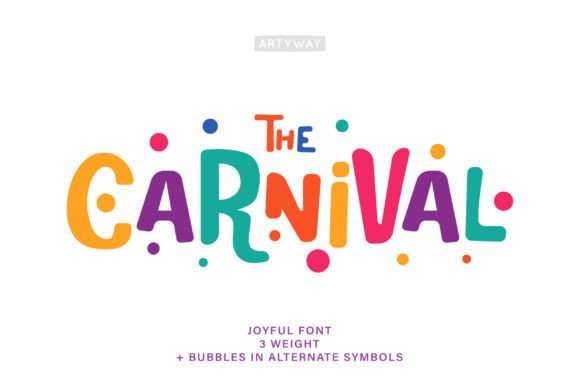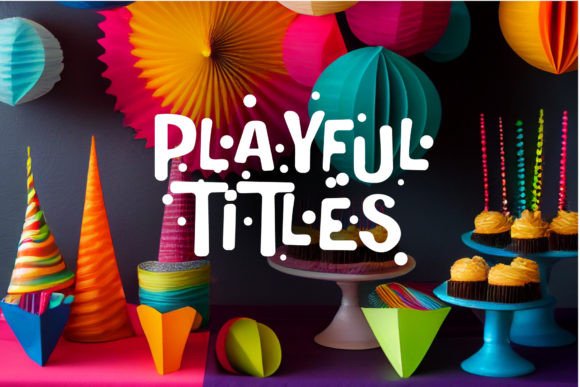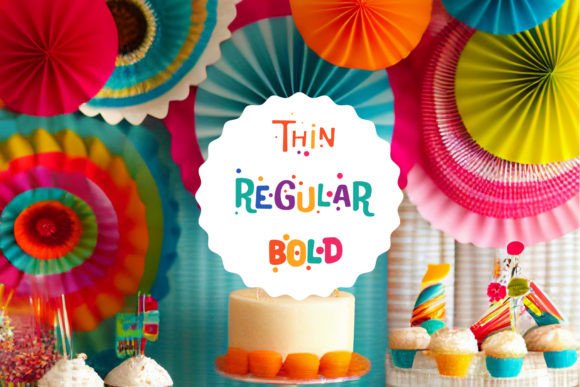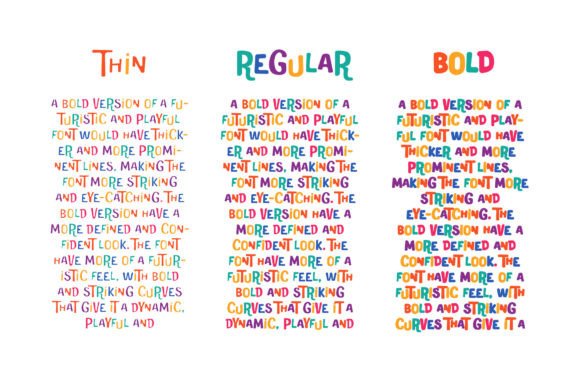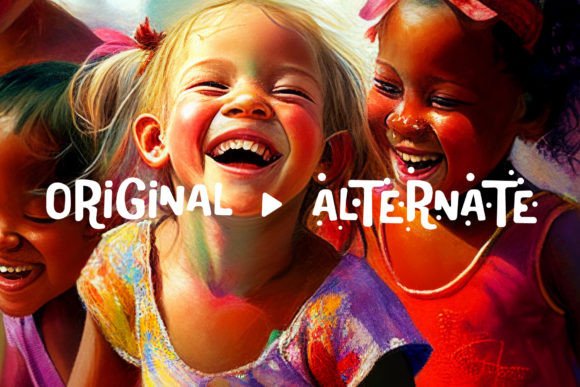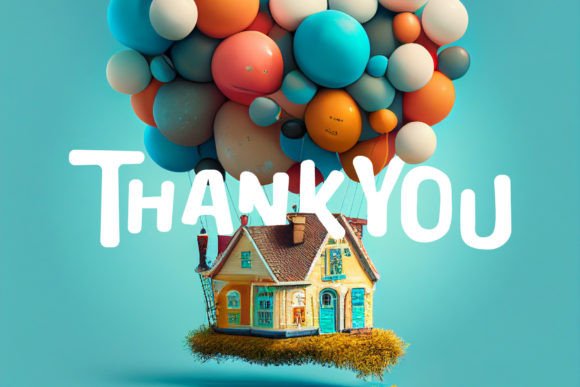
Carnival Font
Introducing the “Carnival” font, the perfect addition to any party or celebration! This colorful and playful font features rounded letters in a variety of bright hues, making it perfect for birthday invitations, carnival posters, and party headlines. Add a touch of fun and excitement to your event with “Carnival”!